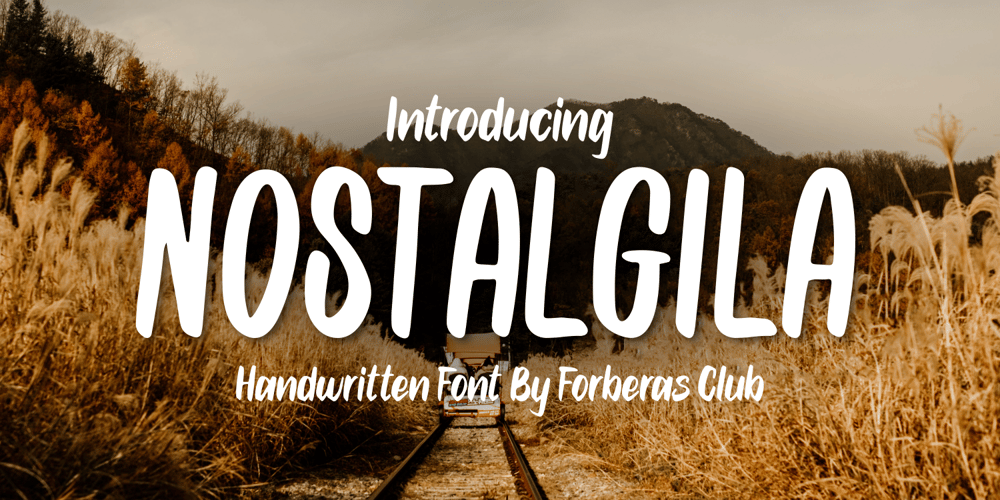
Nostagila Font Family was designed by ANGGI HERMAWAN and published by Forberas Club. Nostagila contains 1 styles and family package options. This font is made based on memories from the past. Where is writing in a diary that tells about everyday stories. Are you ready to write a story with this font? or did you want to make a crafty item, this font will do it too.